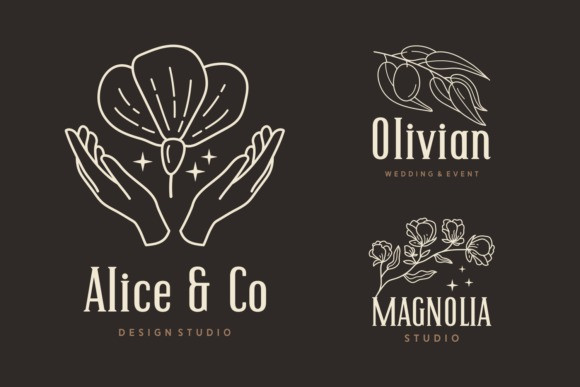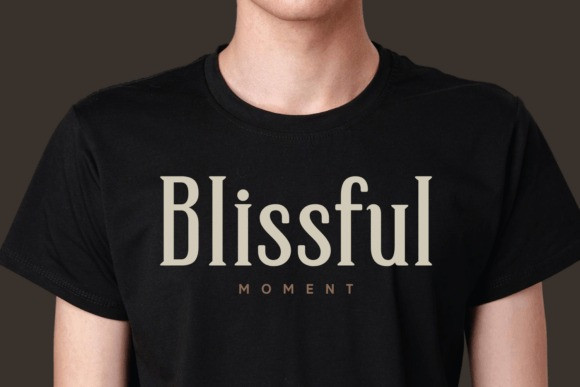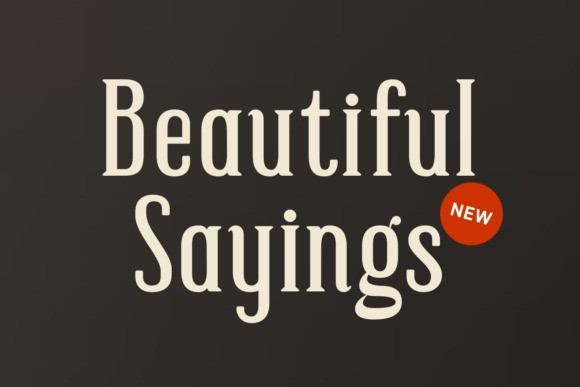
Beautiful Sayings Font
Beautiful Sayings Font is an epitome of the perfect Serif font permeating elegance, and modernity in each stroke. This font is an authentic visual treat for photographers, for it adds the needed emphasis on accent details effortlessly. “Beautiful Sayings” stands tall in its versatility, adorning apparel with a unique charm and giving books a polished look with its clean lines. When it comes to branding, this font truly shines, whether it’s about adding a suave touch to cards, making magazine covers standout, giving a neat look to logotypes or making package designs speak louder. With its smooth texture and trendy appeal, “Beautiful Sayings” can transform a simple quote into a head-turning statement, or amp up the glamour of your T-shirt design. Uncover the potential of “Beautiful Sayings”, a font designed for the creatives at heart.